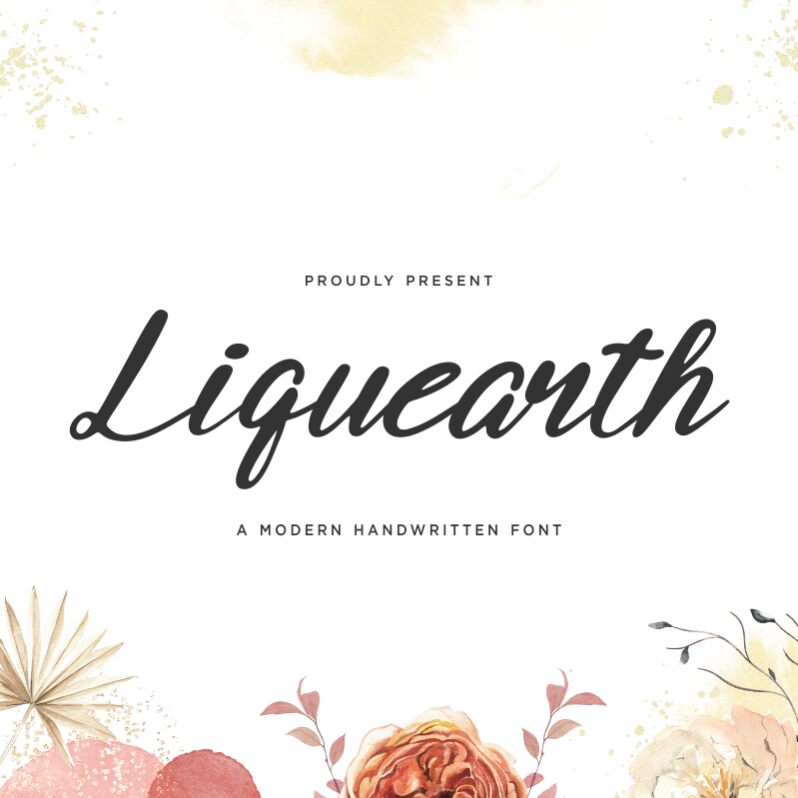
Liquearth
Liquearth by Qwrtype Foundry is a modern handwritten script font. It adds a unique, personalized touch to any project, from logos to book covers to social media graphics.